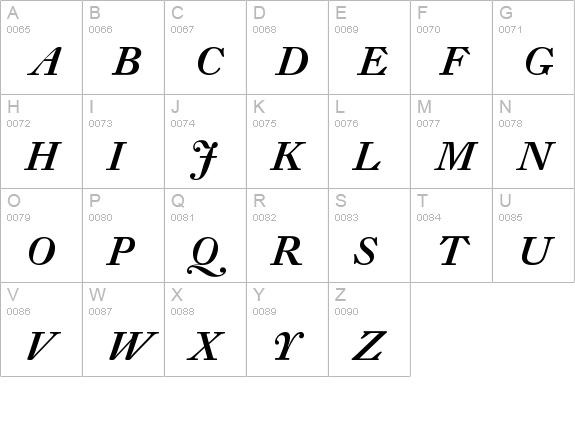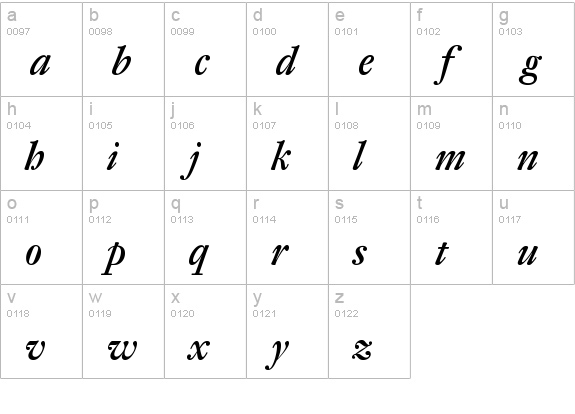
DTL Fleischmann SD Medium Italic is a balanced, medium-weight, italic variant in the DTL typeface family \xE2\x80\x94 well suited to sub-headlines, navigation, and balanced editorial work.
The DTL Fleischmann SD Medium Italic font is a sophisticated and elegant typeface that exudes a sense of classic refinement and modern flair. This beautifully designed font strikes the perfect balance between tradition and innovation, making it ideal for a wide range of design projects. Its medium weight and italic style add a touch of dynamism and visual interest to any text, while maintaining excellent readability. The graceful curves and sharp serifs of the letters give this font a distinctive and memorable look that is sure to make a lasting impression. Best of all, the DTL Fleischmann SD Medium Italic font is available for free download at FontsMarket.com. Whether you're working on a personal project or a professional design, this font is a versatile and stylish choice that will elevate your work to the next level. Download it today and unleash your creativity with this stunning typeface.